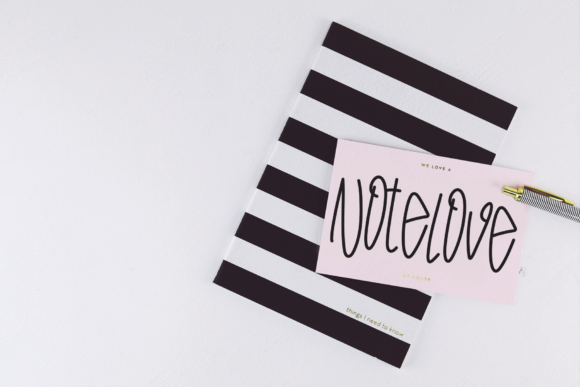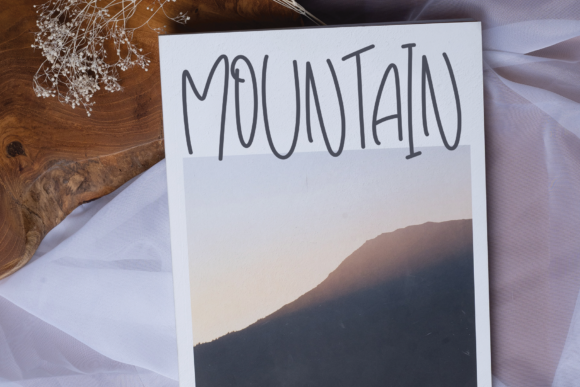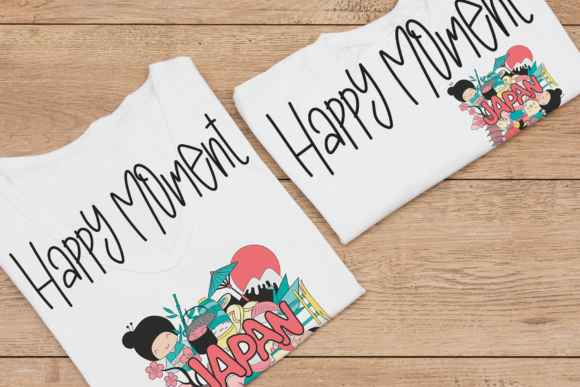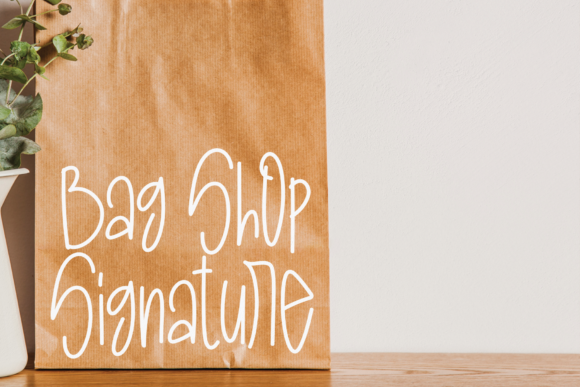
Blessed Font
About Blessed Font
Blessed is a simple, quirky and adaptable handwritten font. Its informal style and casual vibe will make this font a go-to choice for each of the creations that require a relaxed touch.